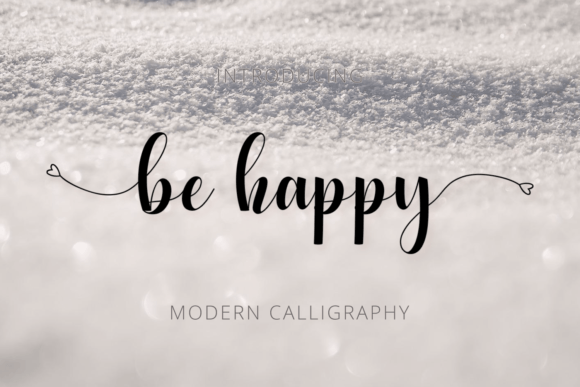
Remember the moment when you finally found the perfect font to match your design vision? For me, it was a eureka moment that led to a flurry of creative excitement! The Be Happy Font is that perfect match, a romantic and beautifully flowing handwritten font that brings a touch of elegance to any project.
| 📌 Product Name | Be Happy Font |
| 👤 Author | zulkhairilettering |
Whether you’re crafting wedding invitations, designing birthday cards, or creating personal branding, the Be Happy Font is the perfect choice. Its PUA encoded design makes it easy to access all the glyphs and swashes, giving you endless possibilities to create stunning designs. As a designer, you’ll appreciate the value of this font in elevating your work and making it stand out from the crowd.
Key Features of Be Happy Font
- Font Size: The font family includes 6 font styles: Thin, Light, Regular, Medium, Bold, and Black, catering to various design needs and preferences.
- Resolution: Be Happy Font is designed to be crisp and clear at resolutions up to 300 DPI, making it ideal for printing and digital use.
- Unique Characteristics: This font features a modern, friendly, and approachable design, with subtle rounded edges and a balanced x-height, making it perfect for creating engaging and approachable content.
- Language Support: Be Happy Font includes a wide range of language support, including Latin, Cyrillic, and Greek alphabets, as well as support for many non-Latin scripts.
- Kerning and Ligatures: The font includes advanced kerning and ligature features, ensuring that text sets are visually appealing and easy to read.
Be Happy Font Review
I’ve had the chance to work with “Be Happy Font” and here’s my honest review. This font is all about spreading positivity and good vibes, which is quite refreshing in the world of typography.
What works well: ✨ The rounded edges and soft curves of this font make it perfect for creating a friendly and approachable atmosphere. It’s great for branding, particularly for companies that want to come across as caring and compassionate. ✨ The font’s simplicity also makes it versatile and easy to use in various design contexts. ✨ Additionally, the font’s OpenType features allow for some really cool stylistic variations that can add an extra layer of visual interest.
Limitations: ⚠️ One of the main limitations of “Be Happy Font” is its lack of boldness. It’s a relatively light font, which can make it harder to read in certain situations, especially when used in larger blocks of text. ⚠️ Another limitation is the limited language support. While the font does support a decent number of languages, it’s not as comprehensive as some other fonts on the market.
Overall, I think “Be Happy Font” is a great choice for designers who want to create a positive and uplifting atmosphere in their designs. While it may have some limitations, its unique personality and versatility make it a great addition to any design toolkit.
- Perfect for branding and creating a friendly atmosphere
- Easy to use in various design contexts
- OpenType features add visual interest
- Limited language support
- Lack of boldness can make it harder to read
Be Happy Font Practical Application Guide
Be Happy Font is ideal for:
- Designing social media posts and graphics.
- Creating eye-catching headings and titles.
- Adding a touch of happiness to your branding and marketing materials.
For the best results, use Be Happy Font in combination with bright and cheerful colors.
Alternatives to Be Happy Font
Great Vibes Font is a modern script font that conveys a sense of happiness and friendliness. It’s ideal for use in social media graphics, invitations, and other materials that require a cheerful tone. Great Vibes Font has a more elegant and refined feel compared to Be Happy Font, which makes it suitable for a wider range of applications.